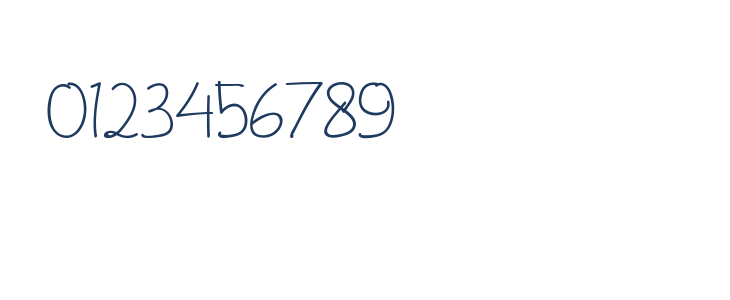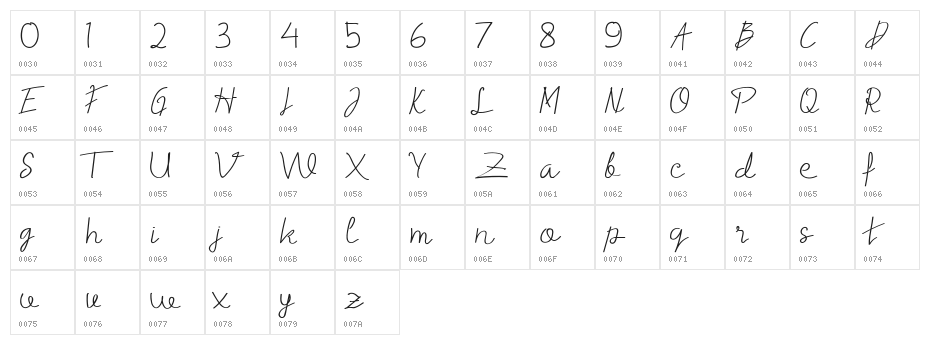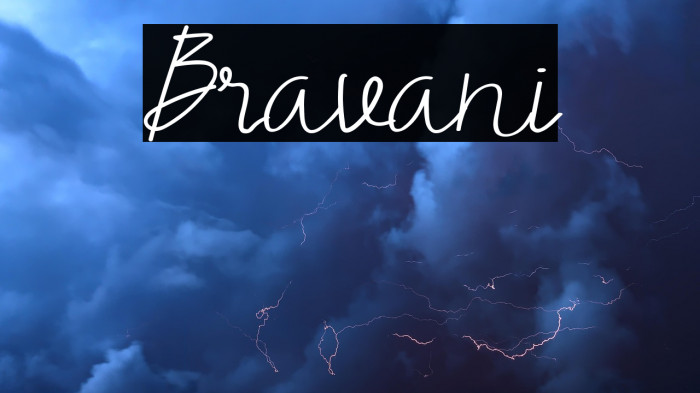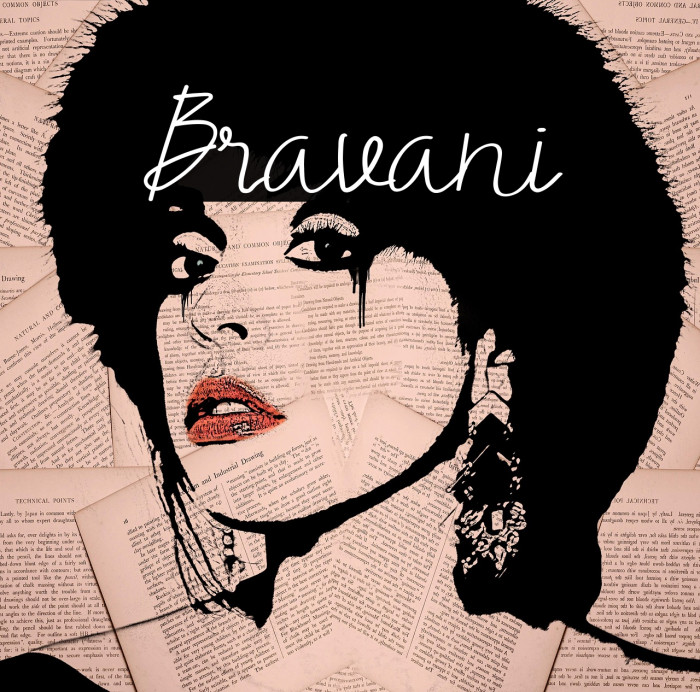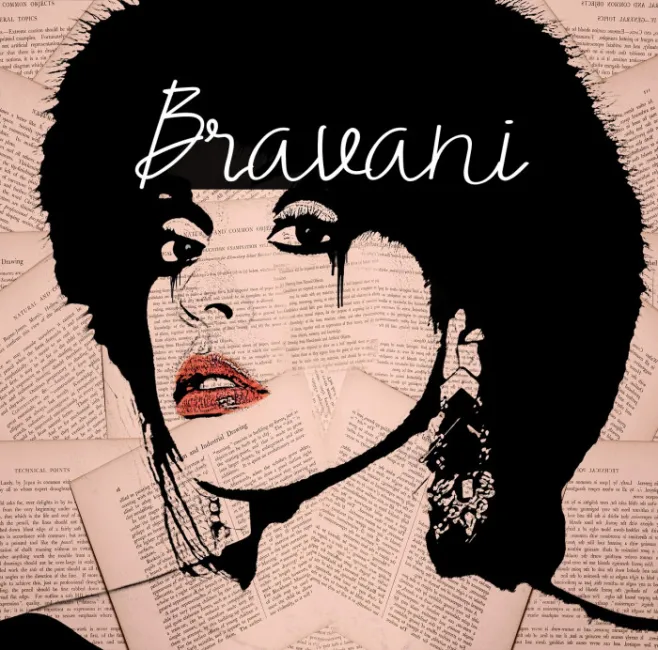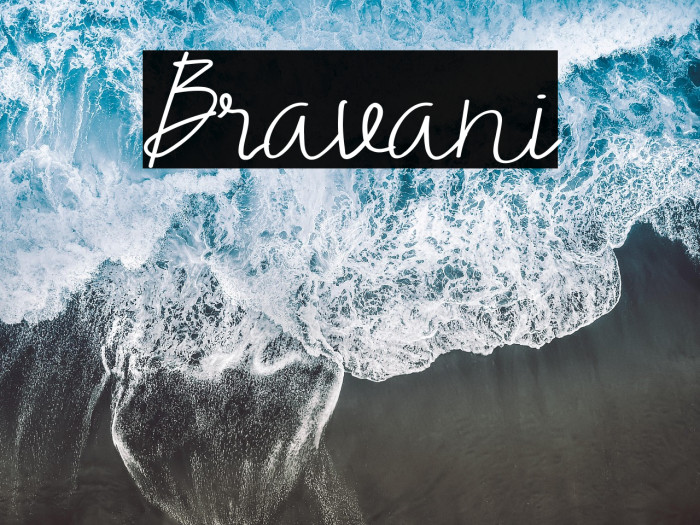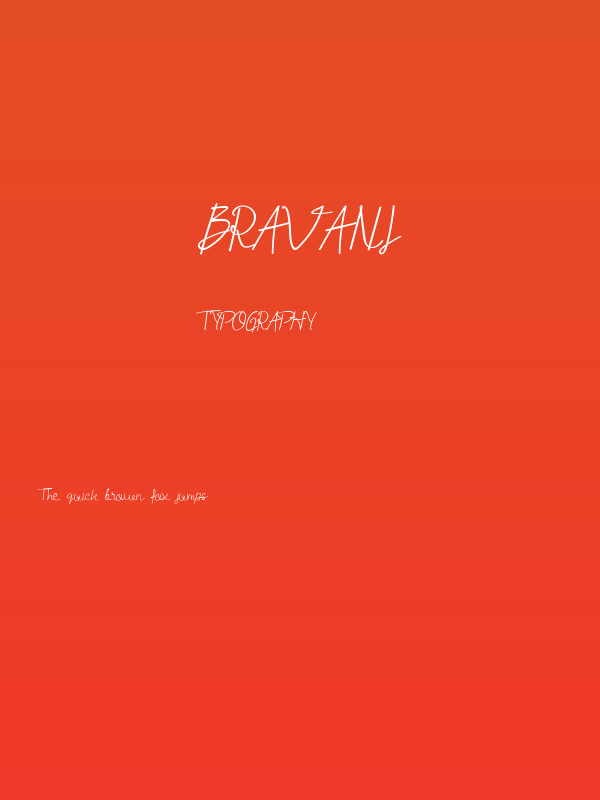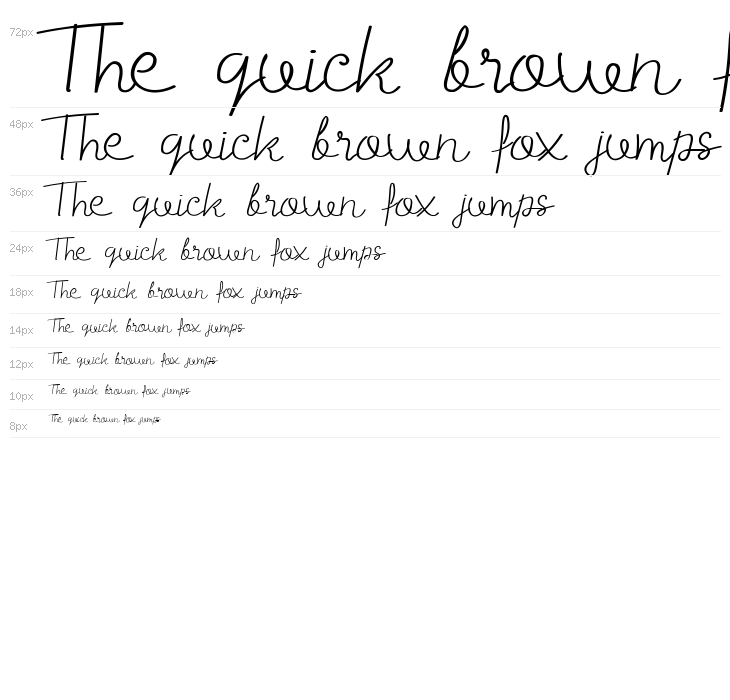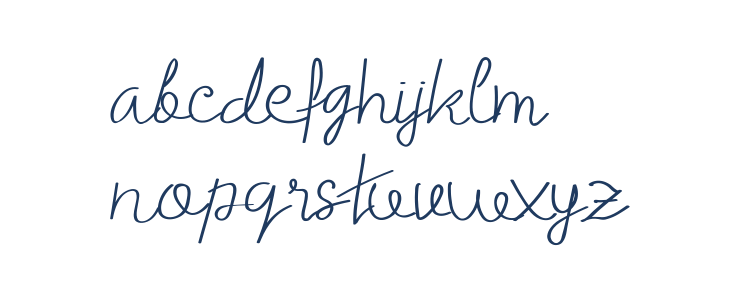
Bravani Font
Bravani Description
This font features a playful and casual handwritten style, characterized by its fluid and connected strokes. The uppercase letters are tall and slightly narrow, with a whimsical flair that adds personality to each character. The lowercase letters maintain a consistent flow, enhancing readability while preserving the font's unique charm. Numbers are rounded and align well with the overall style, making them easy to distinguish. Special characters are thoughtfully integrated, maintaining the font's cohesive look. The overall appearance is both approachable and stylish, making it suitable for a variety of creative applications.
| Use Case | Headlines, Invitations, Personal Branding |
| Proposed Projects | Ideal for greeting cards, invitations, personal branding, and creative projects that require a personal touch. |